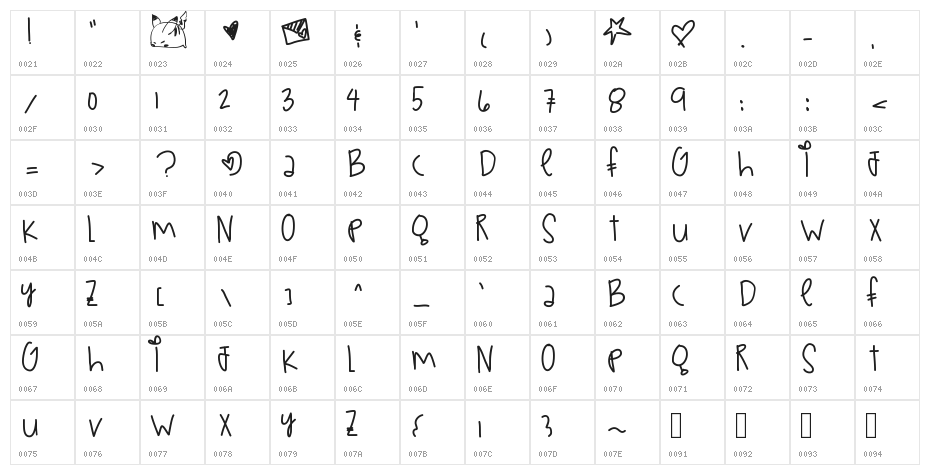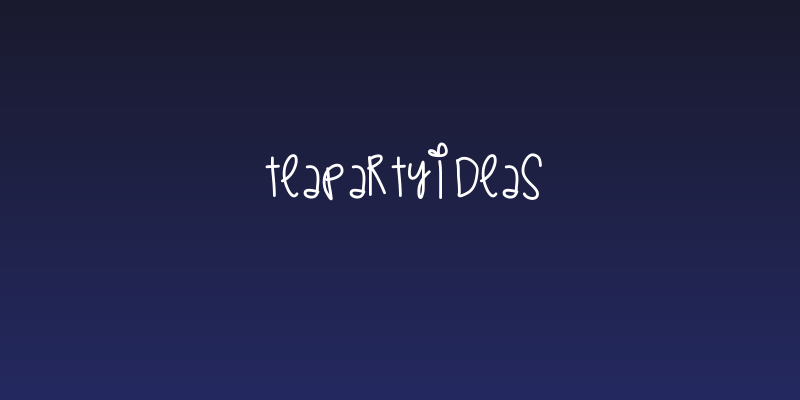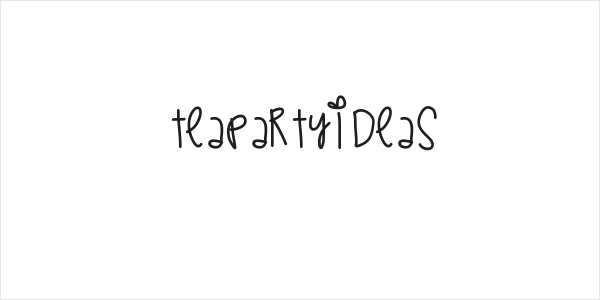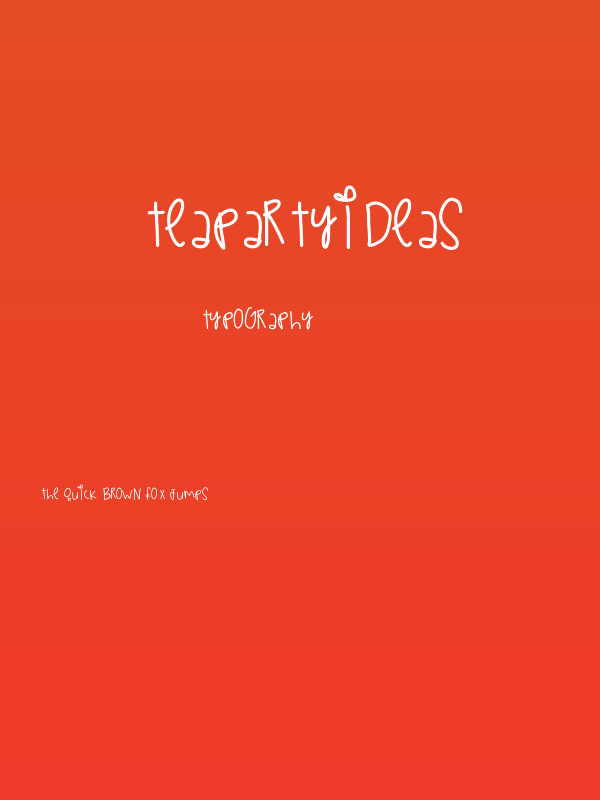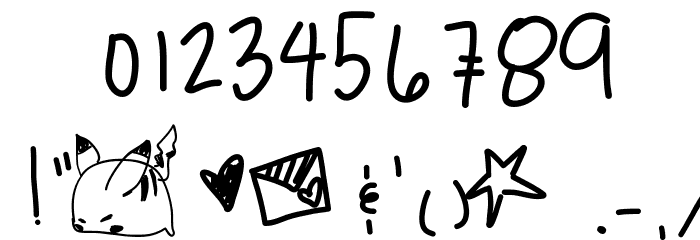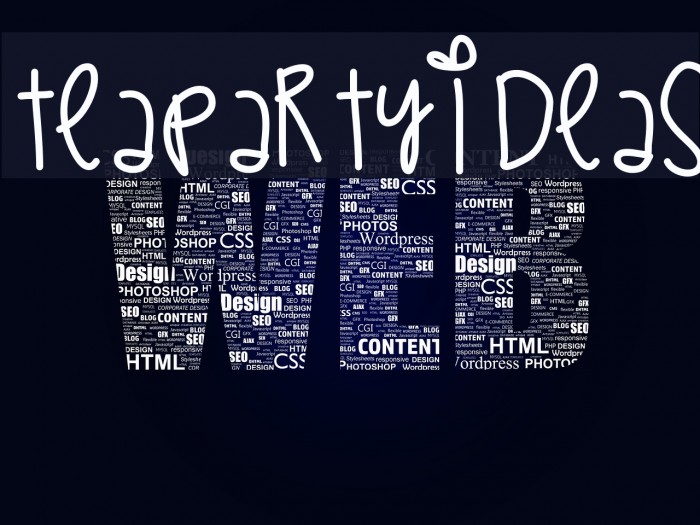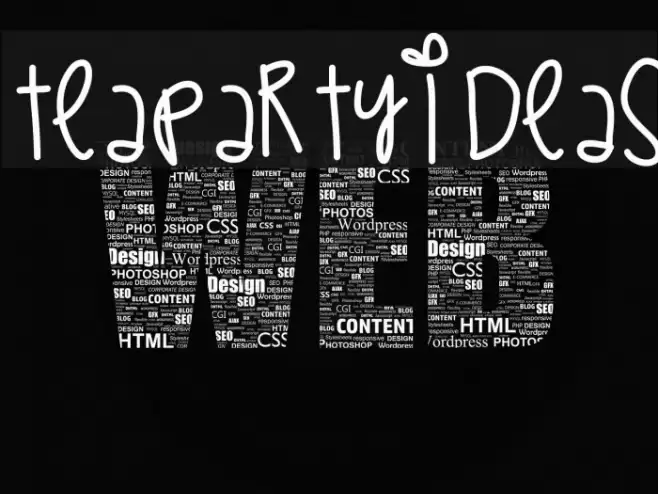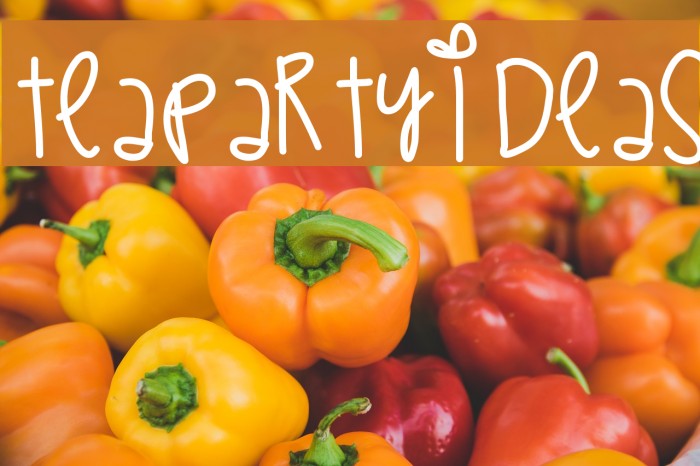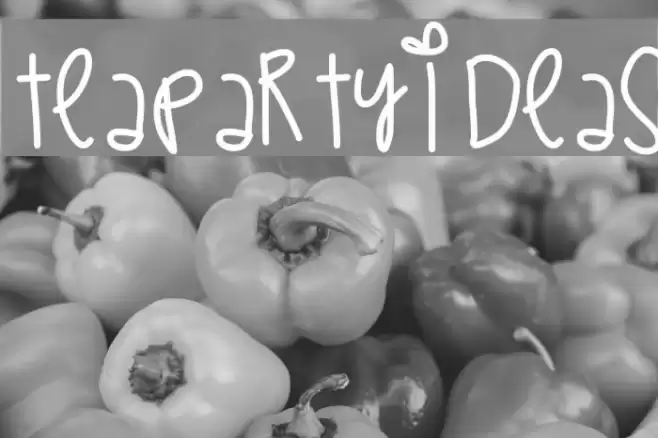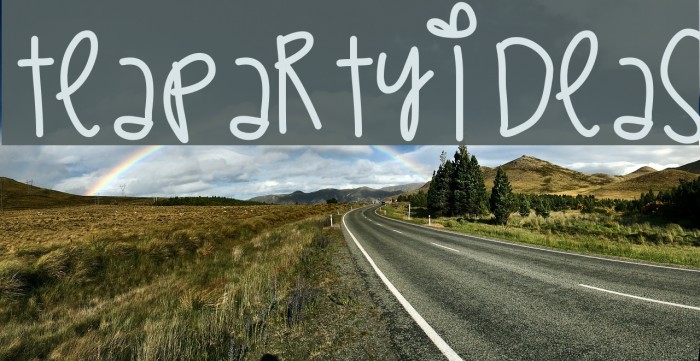
TeaPartyIdeas Font
TeaPartyIdeas Description
This playful and whimsical font features a handwritten style with a casual and friendly appearance. The letters are slightly irregular, adding a charming and personal touch. The uppercase and lowercase characters maintain a consistent flow, with some letters adorned with small decorative elements like hearts and stars. The numbers are clear and easy to read, matching the overall playful theme. Special characters include fun symbols such as a cat, heart, and envelope, enhancing the font's quirky personality. This font is perfect for projects that require a lighthearted and informal feel.
| Use Case | Headlines, Logos, Invitations |
| Proposed Projects | Ideal for children's books, greeting cards, party invitations, and playful branding. |